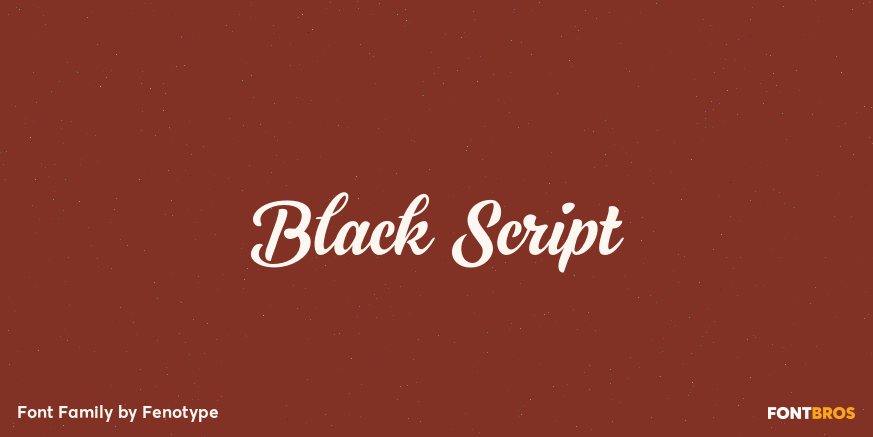
Black Script
About Black Script
Black Script is a bold connected script family with plenty of weights: Regular, Bold, Inline versions, Caps, Ornaments and Printed versions of all those. For the best price purchase either Black Script Family or Black Script Printed Family or Black Script…